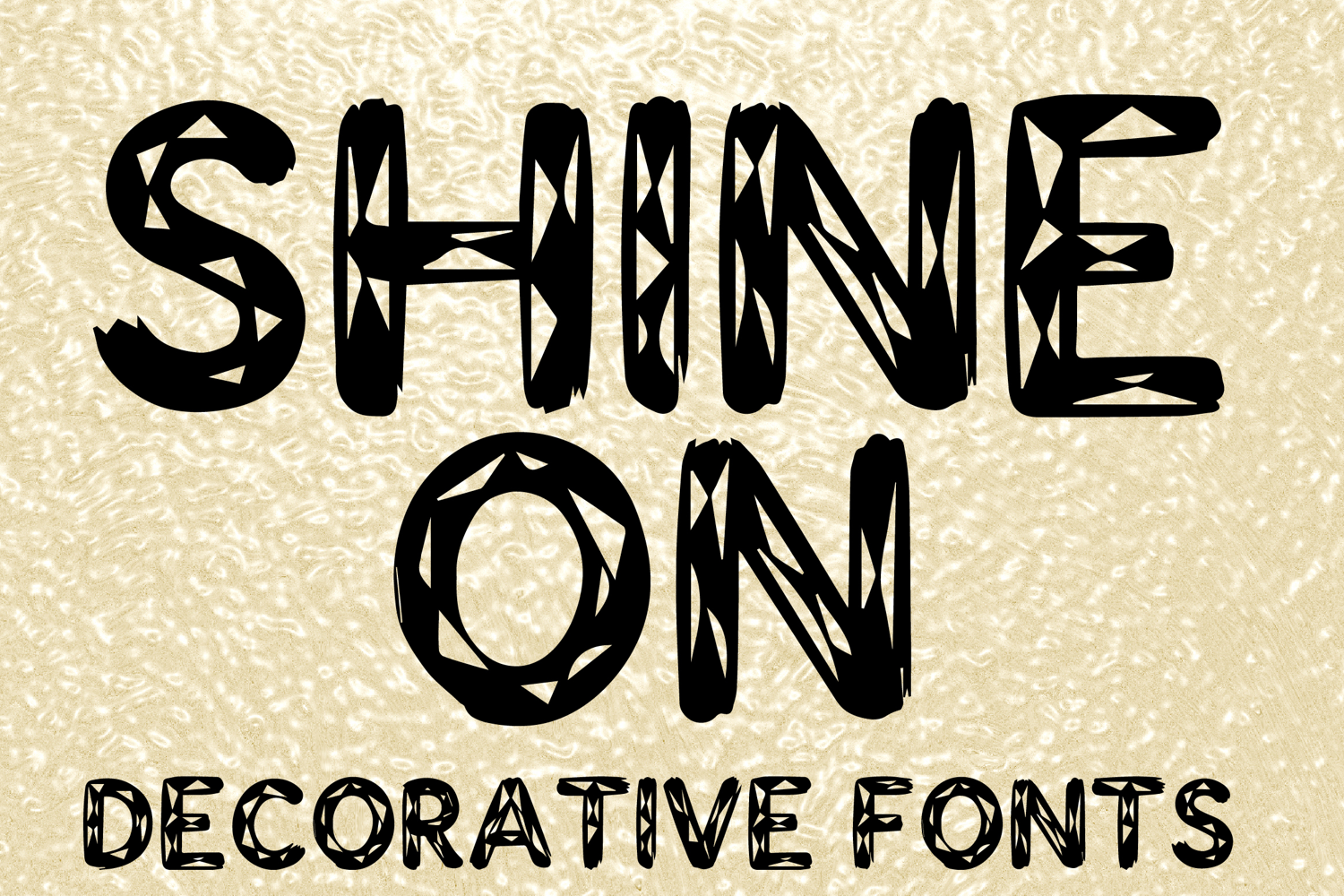
SHINE ON
SHINE ON is a bold decorative display font with a handcrafted geometric style and striking artistic character. Its uppercase letterforms feature thick strokes, sharp cutout details, and textured angular patterns that create a unique, edgy, and eye-catching look. Designed with uppercase letters A–Z and numbers 0–9, SHINE ON is perfect for branding, posters, packaging, logos, headlines, and creative projects that need a powerful and memorable statement